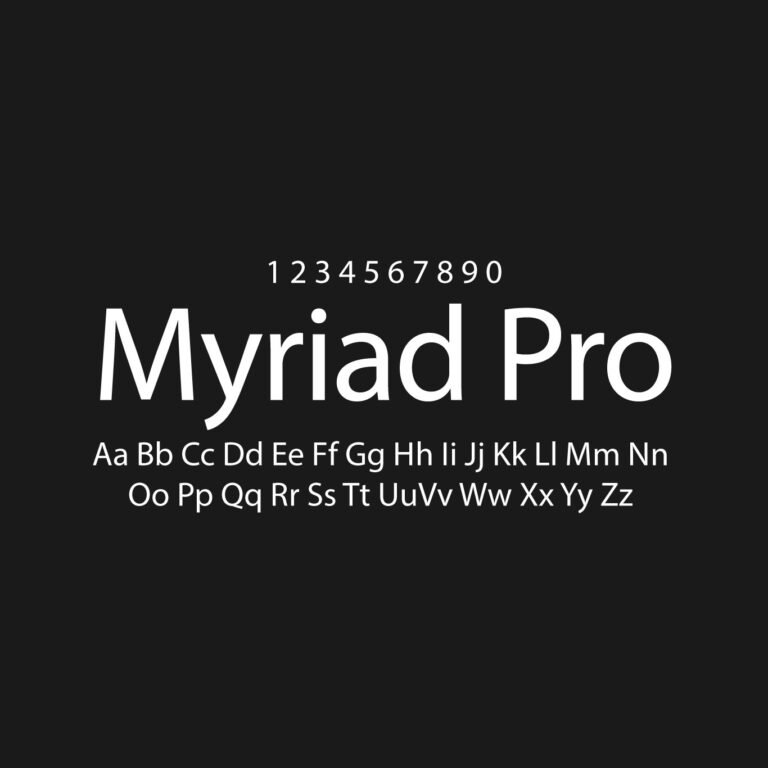
Myriad Pro is a humanist sans-serif typeface designed for Adobe by Robert Slimbach and Carol Twombly, with Fred Brady and Christopher Slye also credited on Adobe’s current font listing. The family first appeared through the Adobe Originals program in 1992.